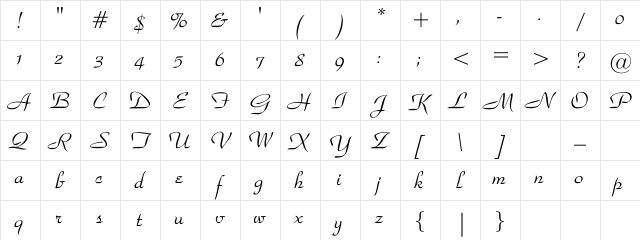
Snooty Regular
Design Context for Snooty
Snooty is a composed and adaptable typeface that performs quietly and consistently across a wide range of design contexts.
Pro Tip: Use Snooty in both headline and body roles to test its range before committing to a single application.